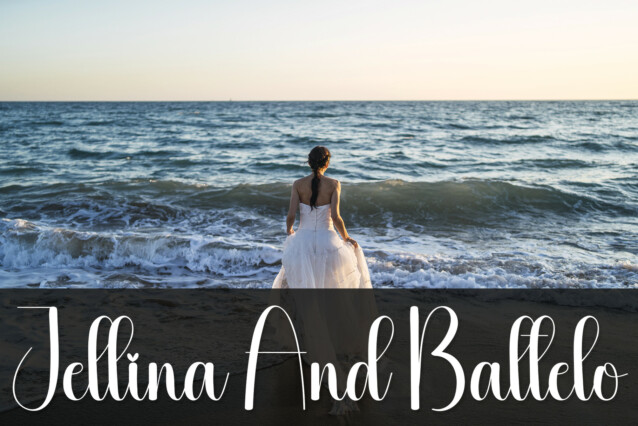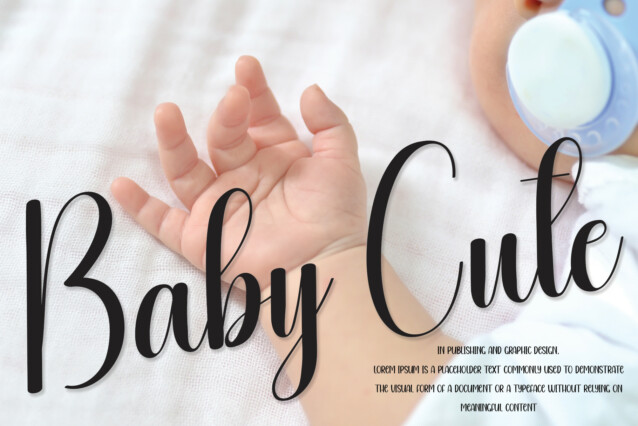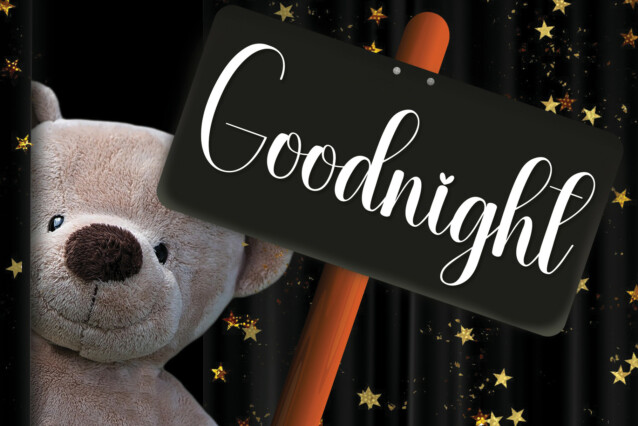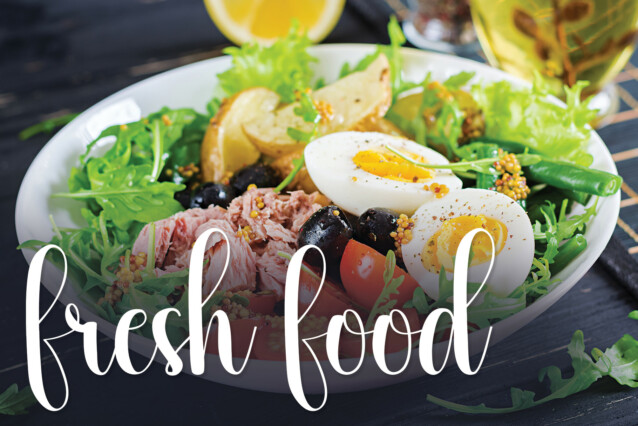
Hearty Script Typeface
Hearty Script Typeface feels equally charming and elegant. It looks stunning on wedding invitations, thank you cards, quotes, greeting cards, logos, business cards, and every other design which needs a handwritten touch.